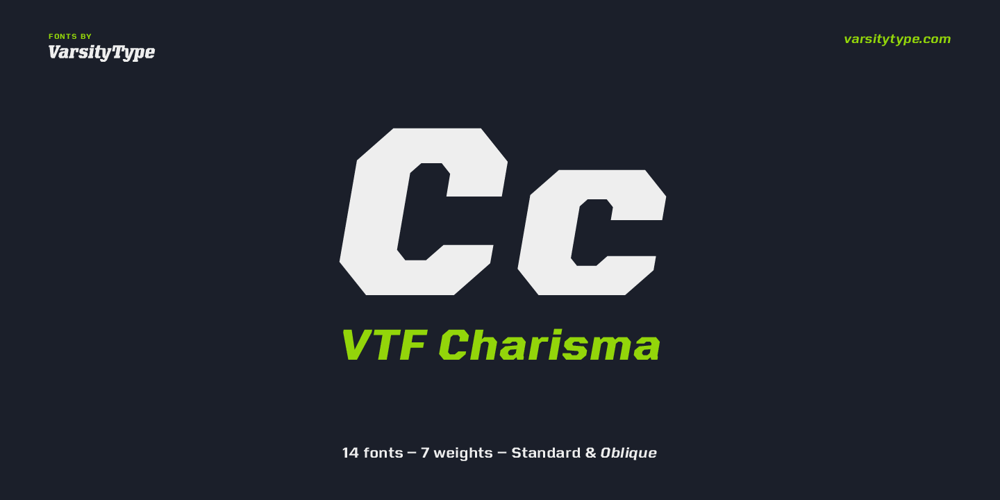
VTF Charisma Font Family was designed by CJ Zilligen and published by VarsityType. VTF Charisma contains 11 styles and family package options. Like traditional athletic block typefaces, VTF Charisma is built with chiseled cornersand a rigid skeleton. However, an underlying formula of fervor and functionality emerges in execution. The typeface features traditional block tendencies that are challenged by expressive angles and deviations in line weight that harken to penmanship. Uniquely tapered terminals seen in letters like “a”, “c”, and “s” demonstrate a strong visual energy while increasing legibility. The legs of angled letterforms like the “A”, “v”, and “y” are cropped in a way that further reinforces this motif. These stylistic cues are employed throughout the family’s 7 weights, ranging from Thin to Black with an accompanying Oblique variant for each. VTF Charisma is equipped with a hefty 970 glyphs that support Small Caps, fractions, extensive Latin characters, stylistic alternates and more. Paired with its dynamic charm and strong visual appearance, the family’s horizon of capabilities broadens.